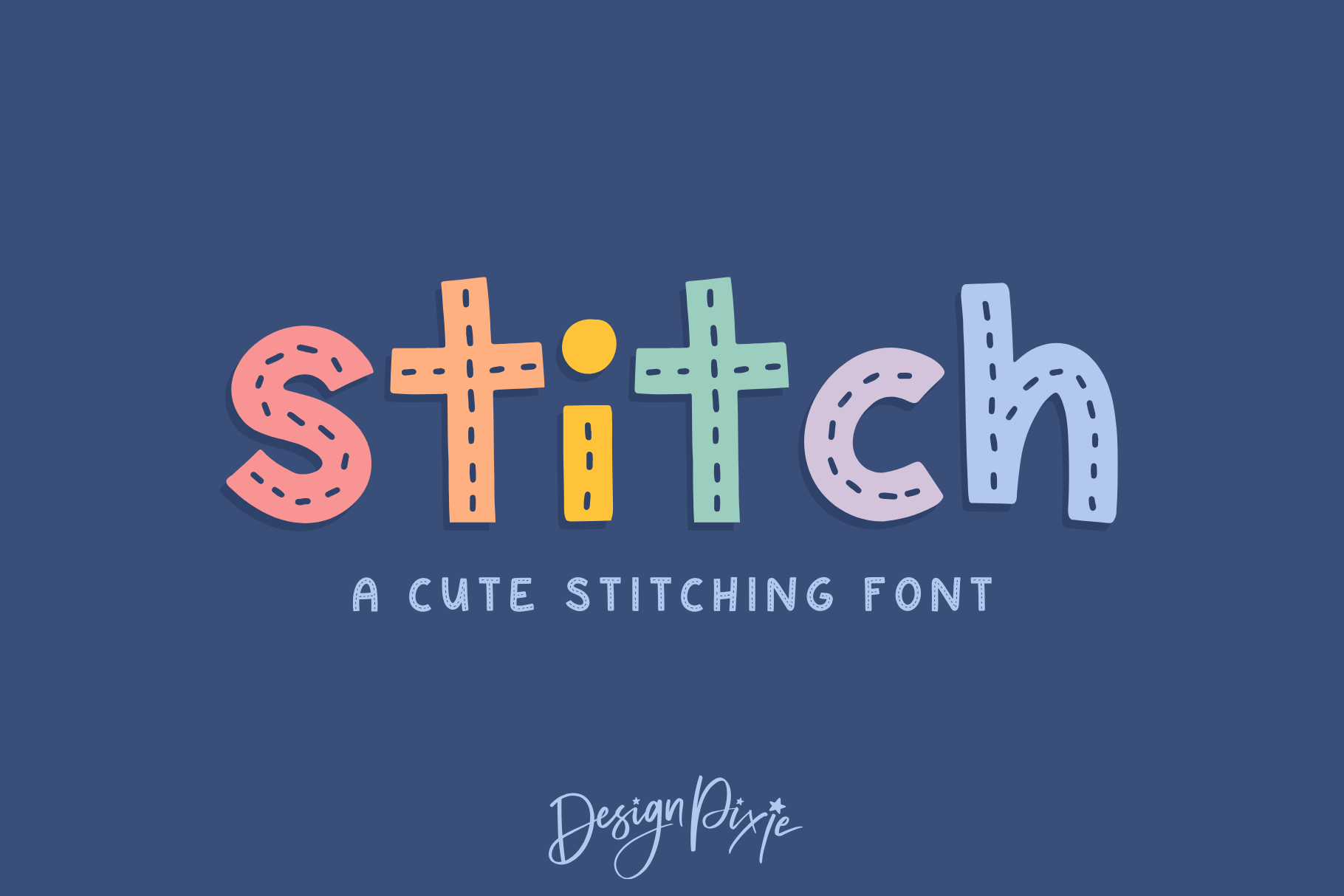
Stitch Font
Stitch font is a lettering font with a stitching pattern. It's a great font for Procreate, iPad, Photoshop and more. Upload this font to Canva to use for your projects that need some cute text with threads.